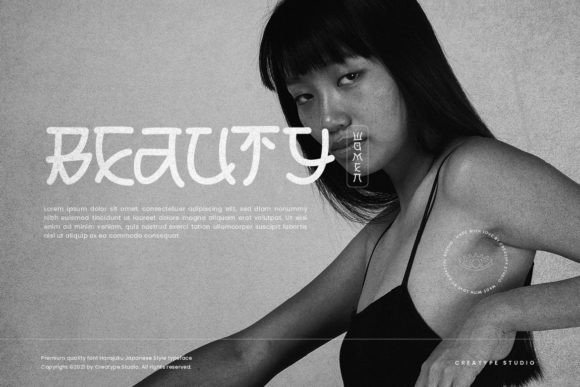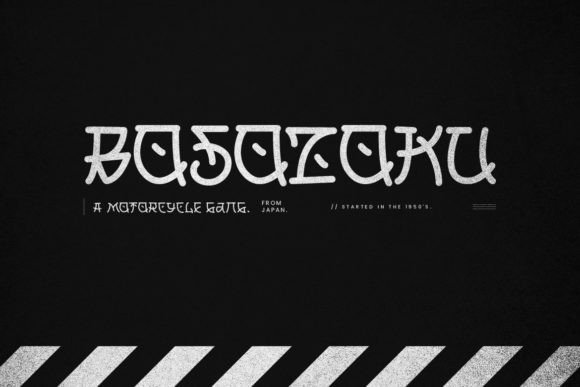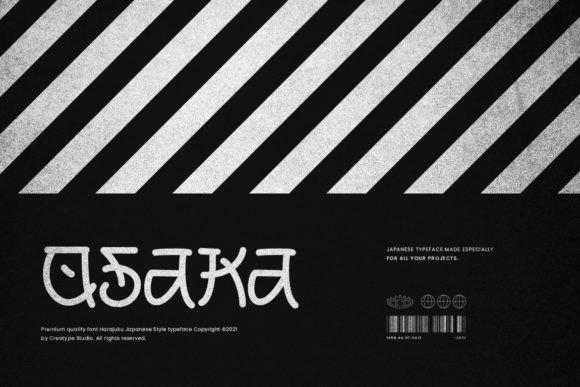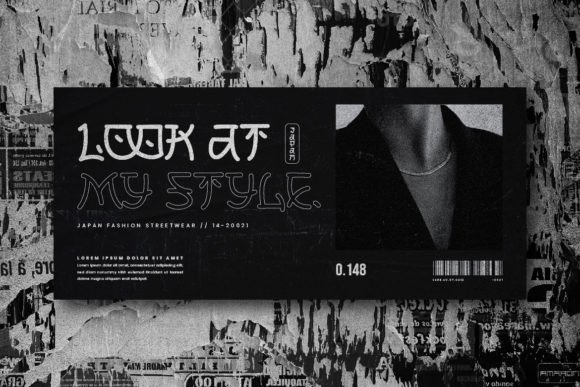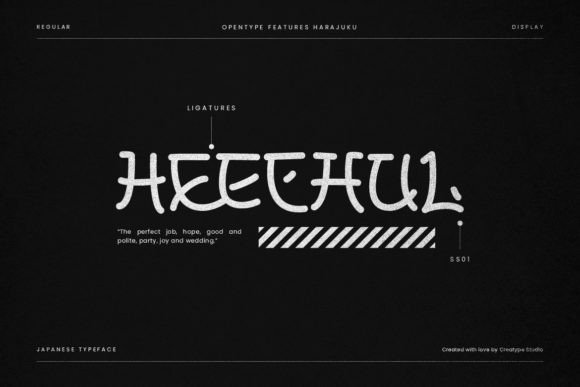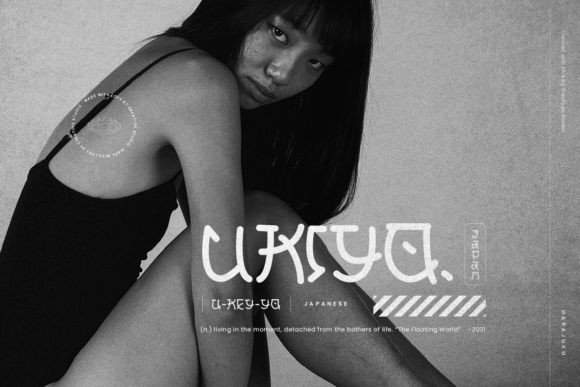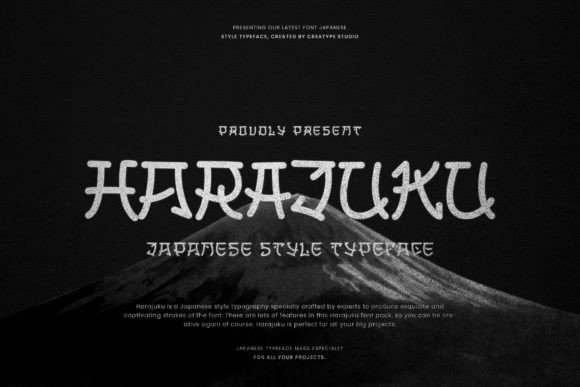
Introducing Harajuku Font: The Ultimate Japanese-Style Display Font
Are you looking for a font that can add a touch of elegance and sophistication to your designs? Look no further than the Harajuku Font, a Japanese-style display font crafted by experts to produce exquisite and captivating strokes. In this article, we’ll dive into the features and benefits of Harajuku Font, and explore how it can elevate your creative projects.
What is Harajuku Font?
Harajuku Font is a specially designed font that embodies the spirit of Japanese aesthetics. Its unique and intricate strokes are perfect for creating visually stunning designs that require a touch of handwriting elegance. Whether you’re working on branding projects, logos, wedding designs, social media posts, advertisements, product packaging, or product designs, Harajuku Font is the perfect choice.
Key Features of Harajuku Font
So, what makes Harajuku Font so special? Here are some of its key features:
- PUA Encoded: Harajuku Font is PUA encoded, which means you can access all of the glyphs and swashes with ease. This makes it easy to use and customize the font to suit your design needs.
- Handwriting Taste: Harajuku Font has a unique handwriting taste that adds a personal touch to your designs. It’s perfect for creating bespoke designs that require a human touch.
- Versatile: Harajuku Font is incredibly versatile and can be used for a wide range of projects, including branding projects, logos, wedding designs, social media posts, advertisements, product packaging, product designs, labels, photography, watermarks, invitations, stationery, and more.
Benefits of Using Harajuku Font
So, why should you choose Harajuku Font for your design projects? Here are some of the benefits of using this amazing font:
- Elegant and Sophisticated: Harajuku Font adds an elegant and sophisticated touch to your designs, making them stand out from the crowd.
- Customizable: With its PUA encoding, Harajuku Font is easy to customize and use. You can access all of the glyphs and swashes with ease, making it easy to create unique designs.
- Time-Saving: Harajuku Font is a time-saving solution for designers. With its wide range of features and versatility, you can create stunning designs in no time.
- Create Your Design: Use Harajuku Font to create your design. With its elegant and sophisticated strokes, you’re sure to create a stunning design.
In conclusion, Harajuku Font is a must-have font for designers and crafters. Its unique and intricate strokes, PUA encoding, and versatility make it the perfect choice for a wide range of design projects. Whether you’re working on branding projects, logos, wedding designs, social media posts, advertisements, product packaging, or product designs, Harajuku Font is the perfect solution. So why wait? Download Harajuku Font today and take your designs to the next level!
- What is Harajuku Font? Harajuku Font is a Japanese-style display font crafted by experts to produce exquisite and captivating strokes.
- What projects can I use Harajuku Font for? Harajuku Font is perfect for branding projects, logos, wedding designs, social media posts, advertisements, product packaging, product designs, labels, photography, watermarks, invitations, stationery, and more.